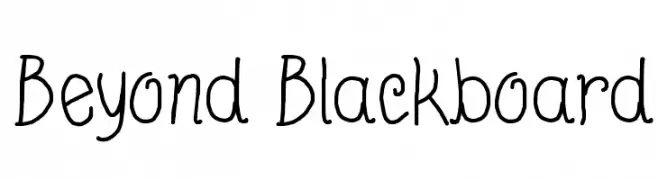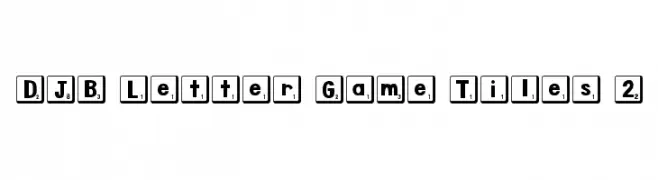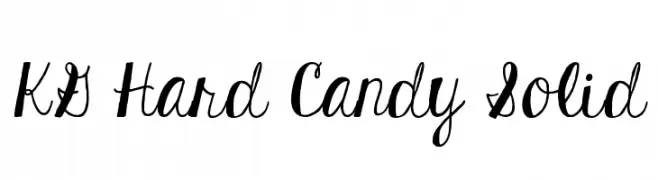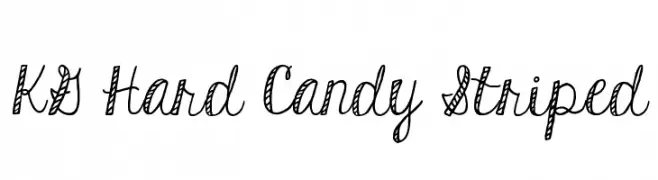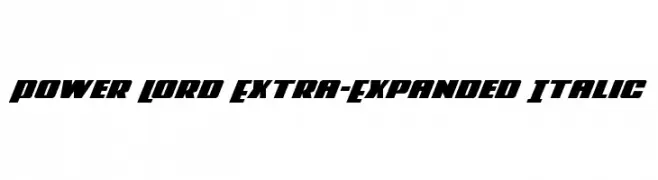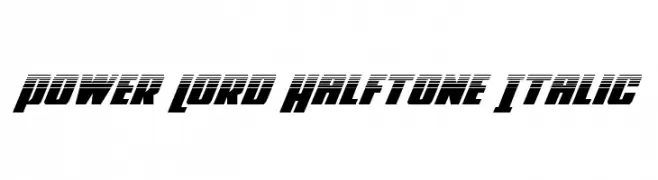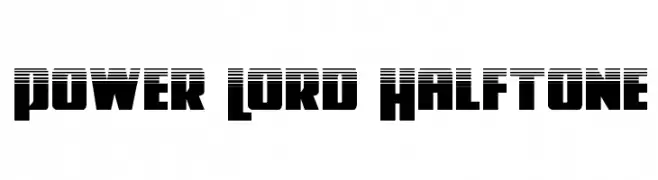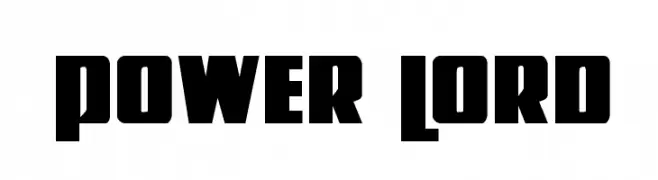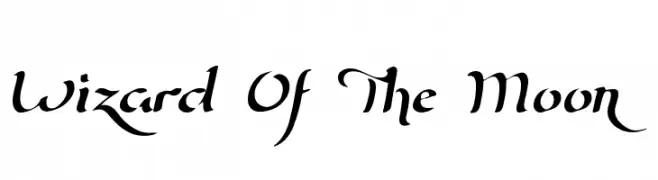
A playful, tile-based font inspired by classic word games.
A playful, handwritten font with a casual and friendly vibe.
A playful script font with a striped, candy-like appearance.
A playful and whimsical script font with smooth, flowing cursive letters.
A mystical, calligraphic font with elegant, flowing lines and sharp serifs.
A bold, italicized font with a halftone effect, exuding a futuristic and dynamic style.
A bold, geometric font with a strong, industrial style.
A bold, halftone-effect font with dynamic, textured strokes.
A bold, italicized, extra expanded font with a modern and dynamic style.